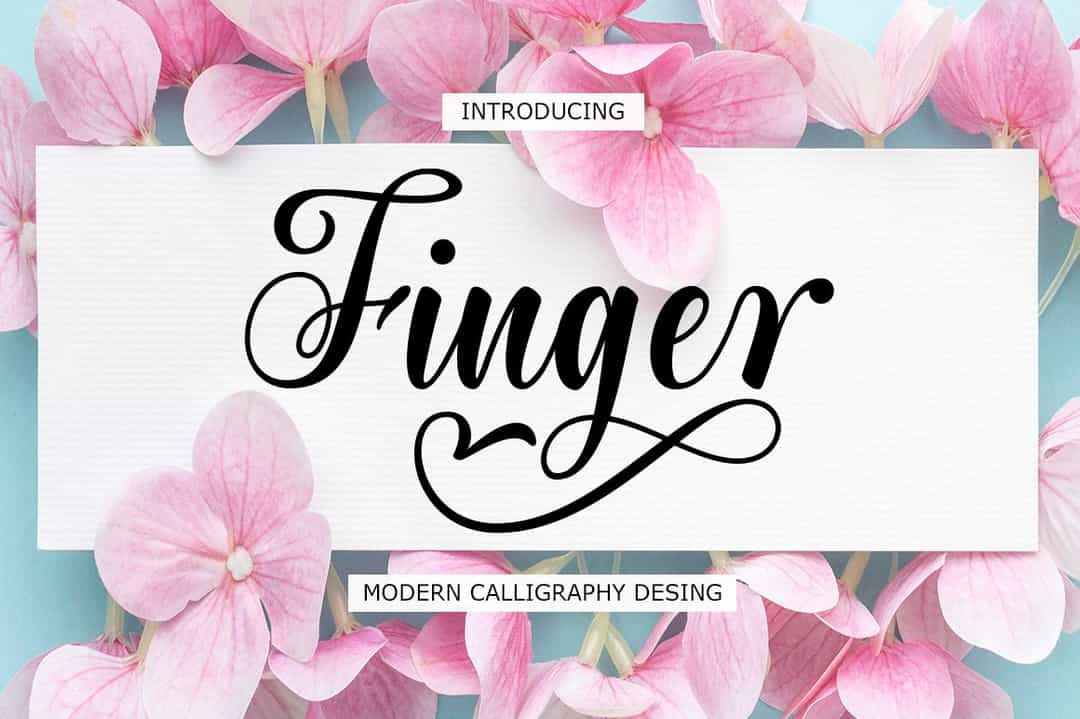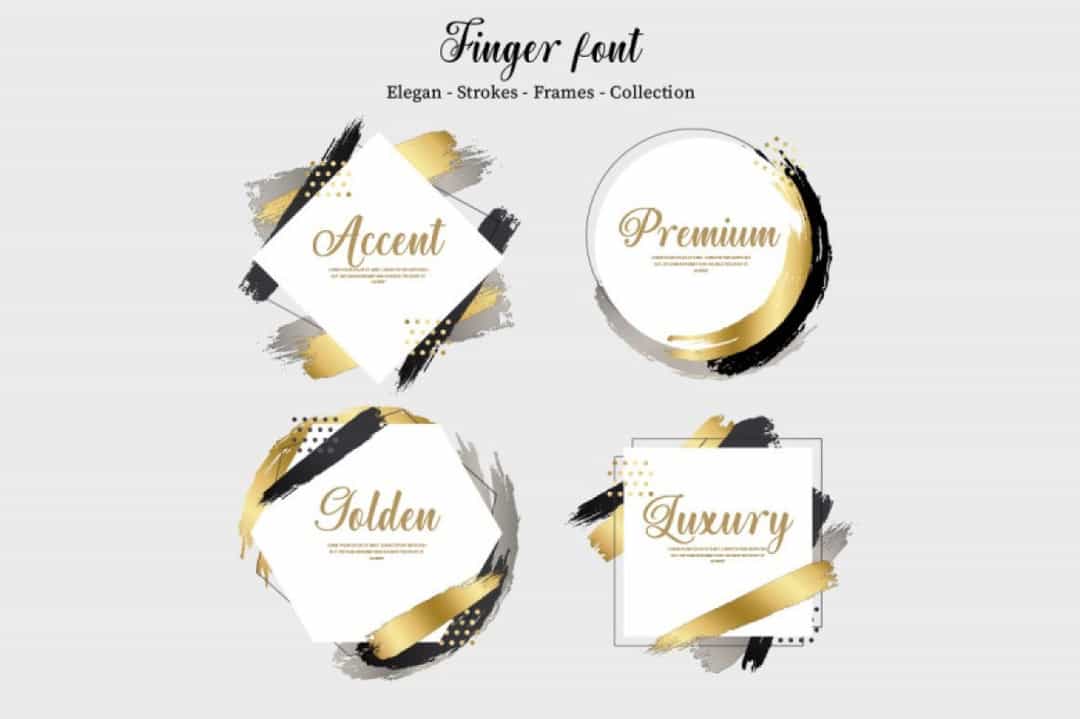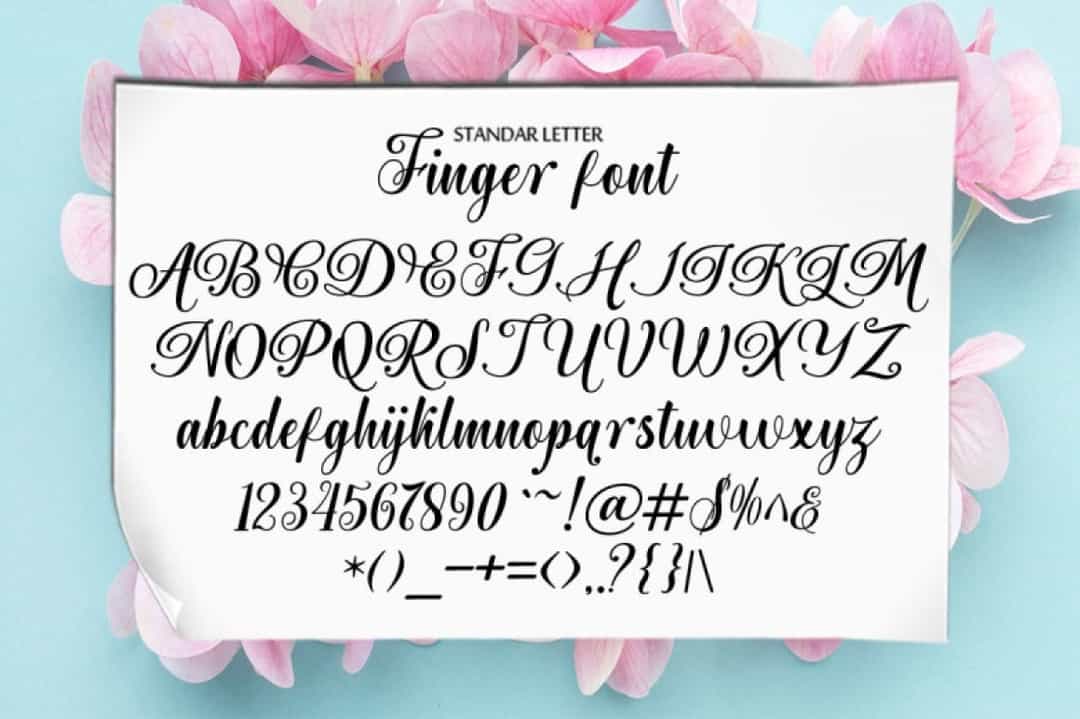
Finger is an exquisite modern calligraphy font featuring beginning and ending strokes for enhanced visual appeal, perfect for creating beautiful designs with this font. Its multiple options provide endless creative potential to help bring this contemporary script font alive in any design environment.